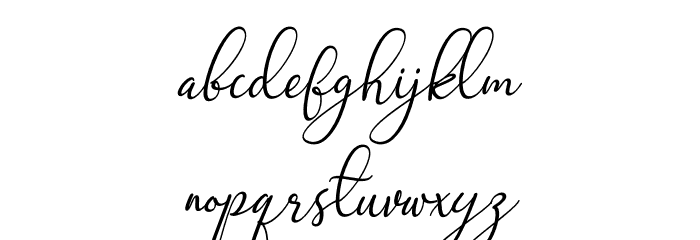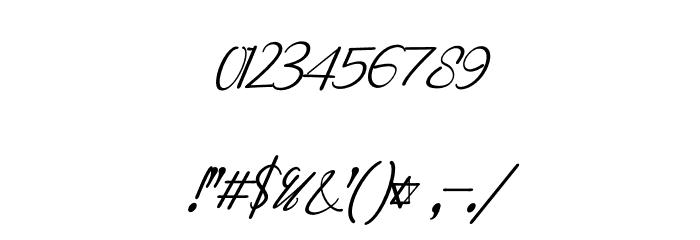
Marlyana Italic Font
This elegant script font features a flowing, cursive style with graceful curves and loops. The characters are interconnected, creating a seamless and fluid appearance. The uppercase letters are ornate and slightly larger, while the lowercase letters maintain a consistent rhythm and balance. The numerals and special characters are designed to complement the overall aesthetic, adding to its sophisticated charm. This font exudes a sense of elegance and refinement, making it ideal for projects that require a touch of class and sophistication.
A graceful and elegant script font with flowing, interconnected characters.
- Font: Marlyana Italic
- Proposed Projects: Ideal for wedding invitations, elegant branding, greeting cards, and upscale packaging.
- Category: Script
- Overall Style: Elegant
- Use Case: Logos, Invitations, Decorative text